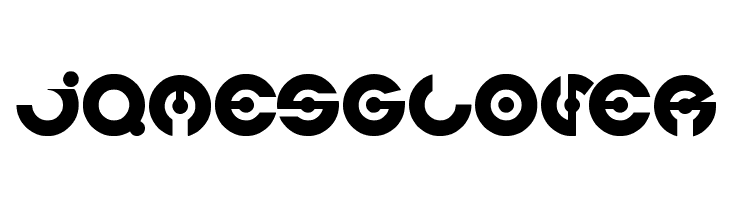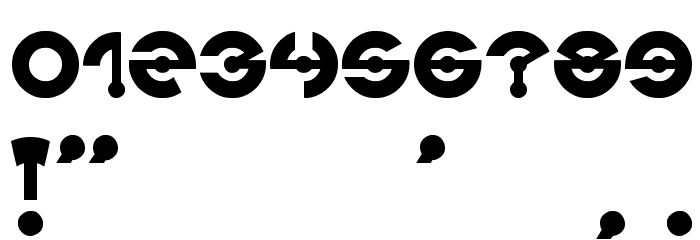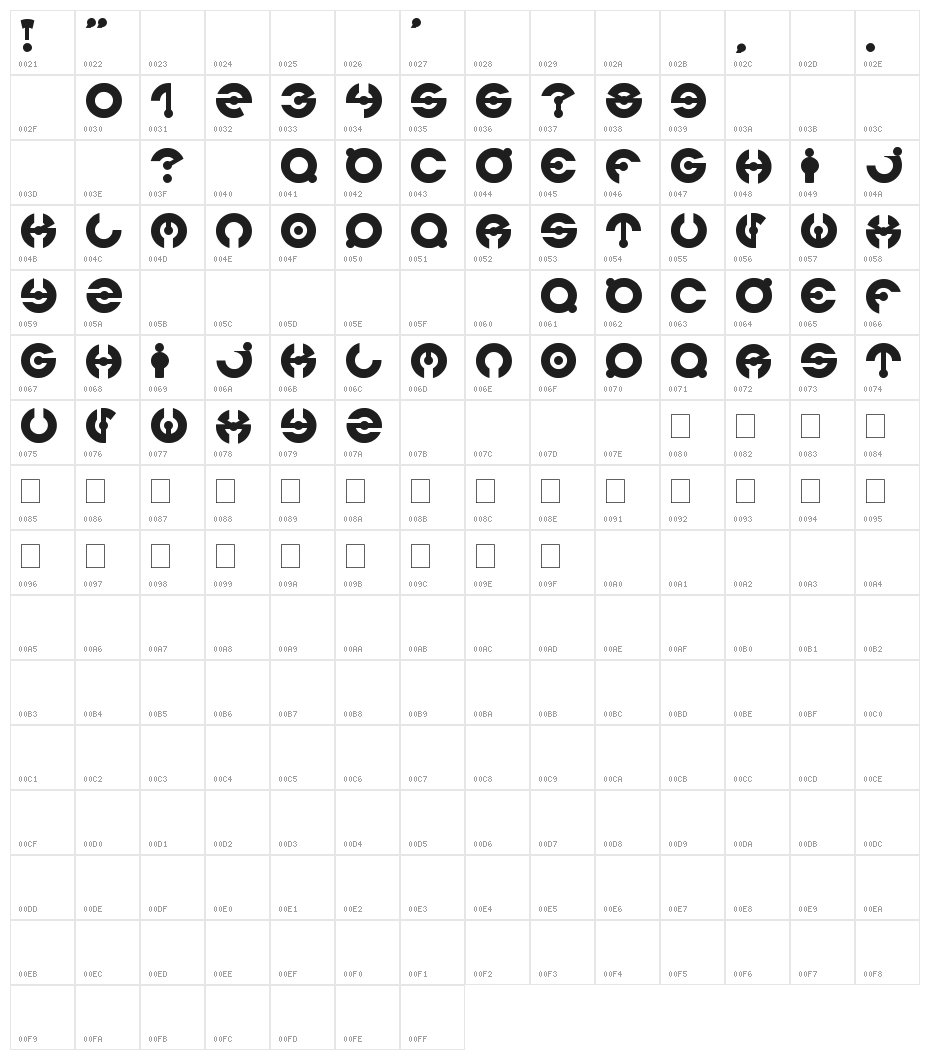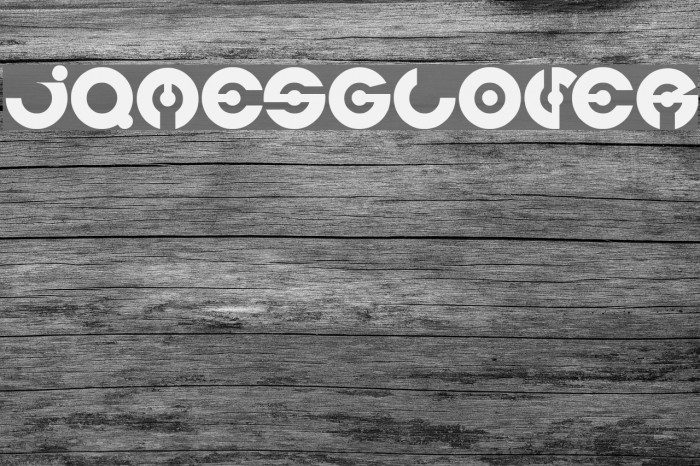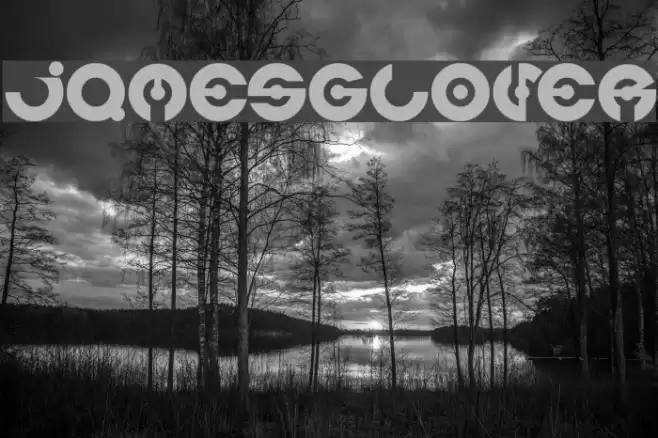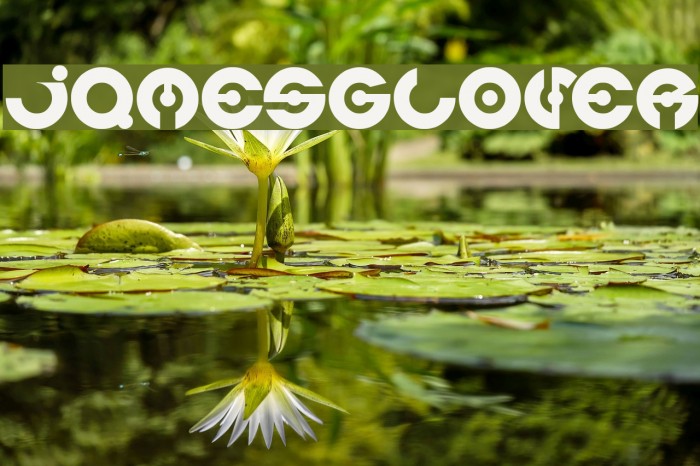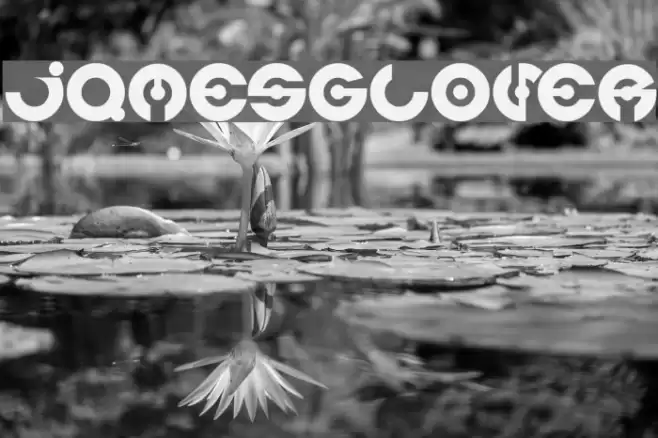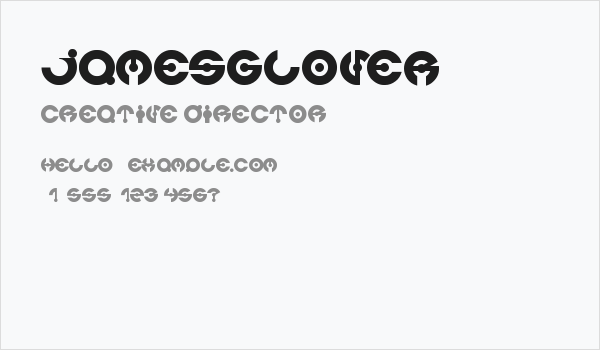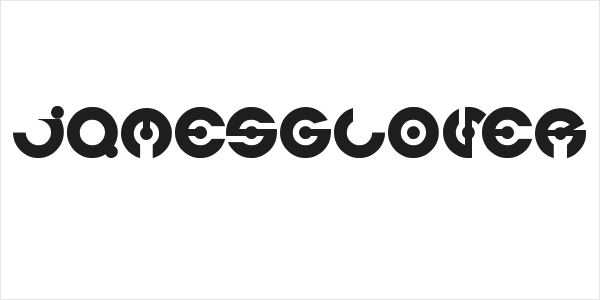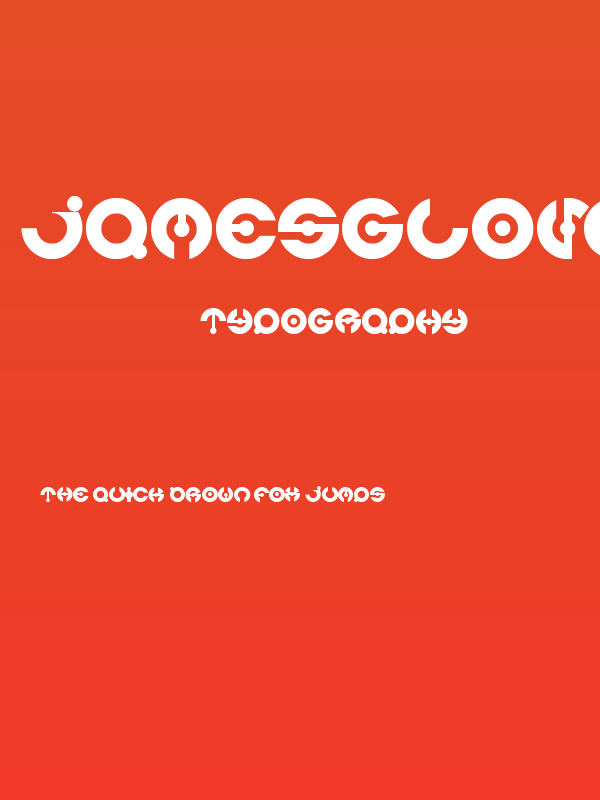
jamesglover Font
jamesglover Description
This font features a bold, geometric design with a futuristic and abstract aesthetic. Each character is crafted with a unique circular motif, creating a sense of symmetry and balance. The letters are composed of thick strokes with consistent width, contributing to a strong visual impact. The design incorporates negative space effectively, enhancing readability while maintaining its artistic flair. The numbers and special characters follow the same stylistic approach, ensuring uniformity across the font. This font is ideal for projects that require a modern and innovative touch.